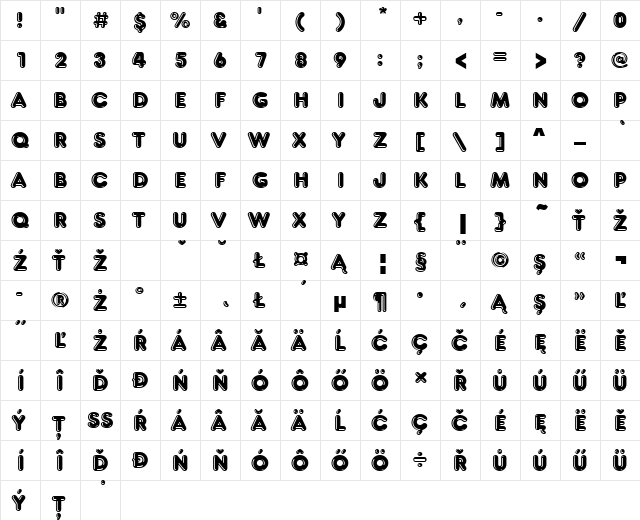
FrankfurterHigDEE Regular Font Preview
FrankfurterHigDEE Regular
FrankfurterHigDEE Regular Font Details
Design Context for FrankfurterHigDEE Typeface
FrankfurterHigDEE takes a measured approach to typography — its balanced proportions and neutral character make it a reliable workhorse for both digital and print work.